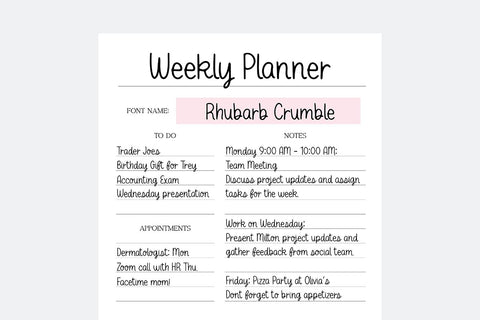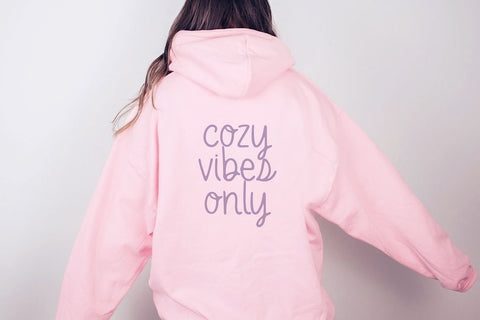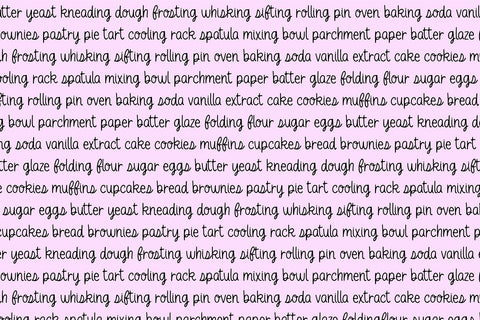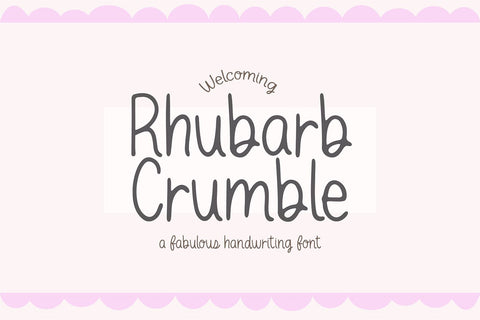
Rhubarb Crumble Feminine Cute Handwriting Font
Rhubarb Crumble
Feminine and Simple Handwriting Font
This handwritten font is perfect for goodnotes, invitations, crafts, and more!